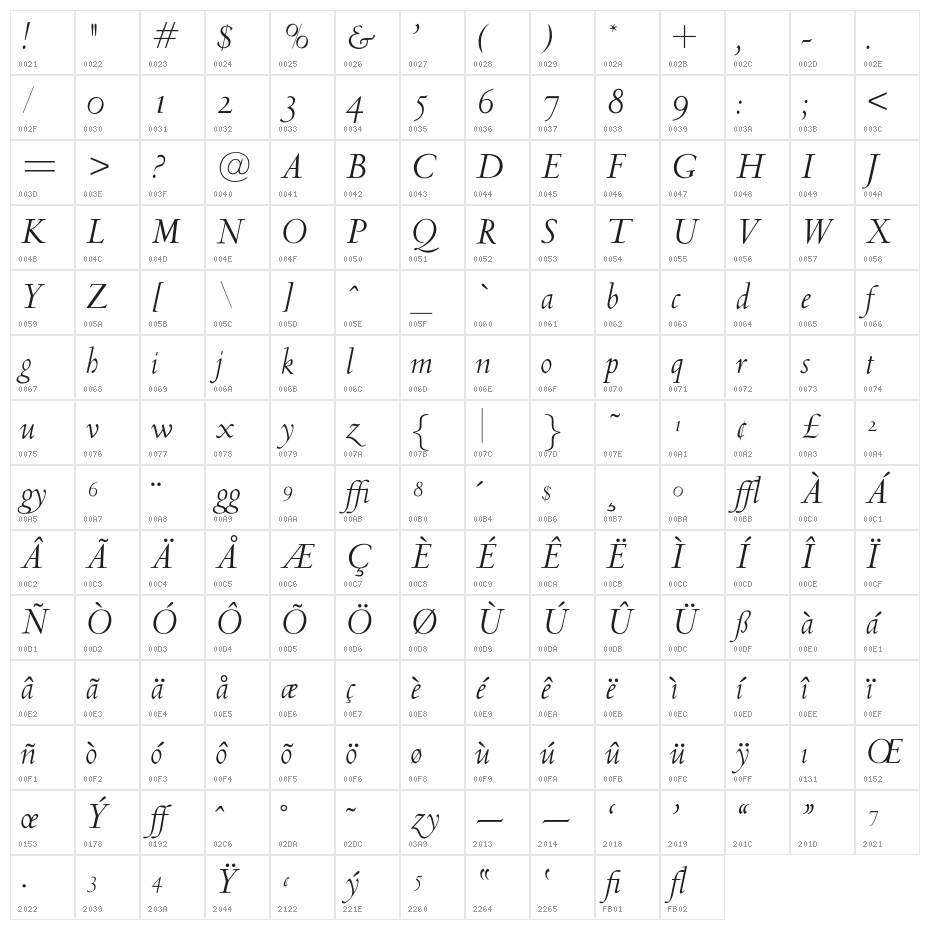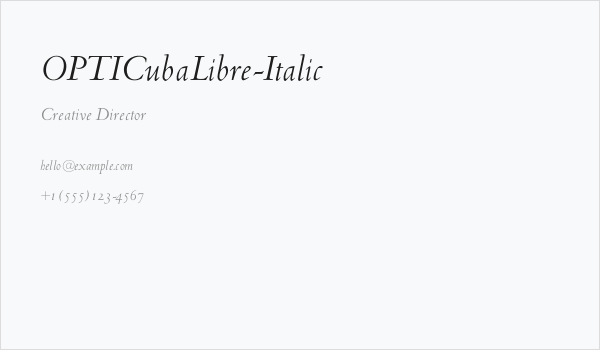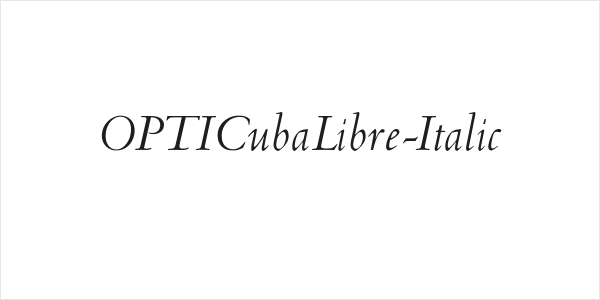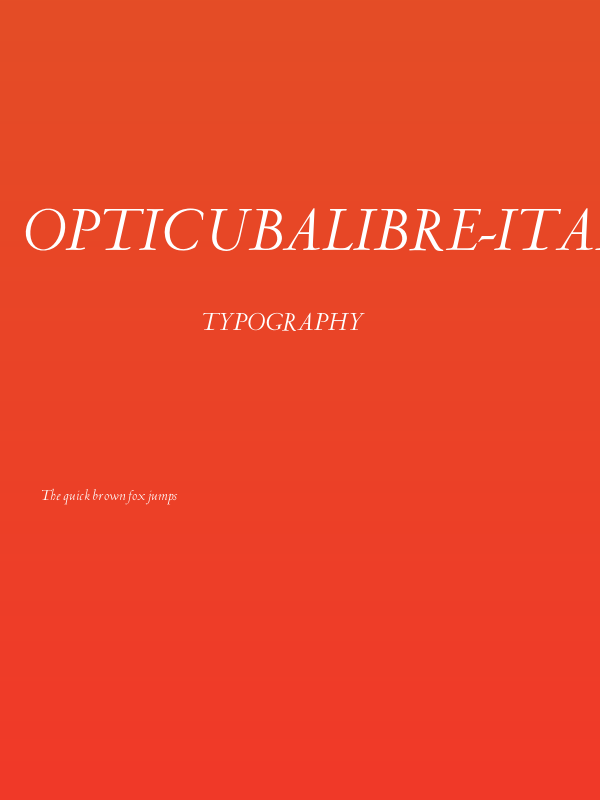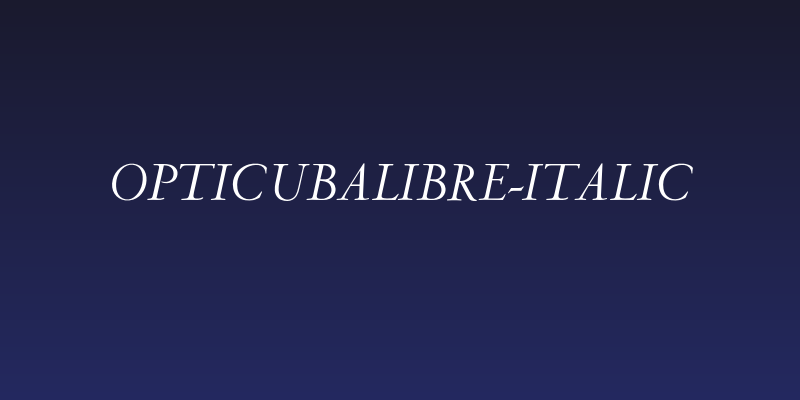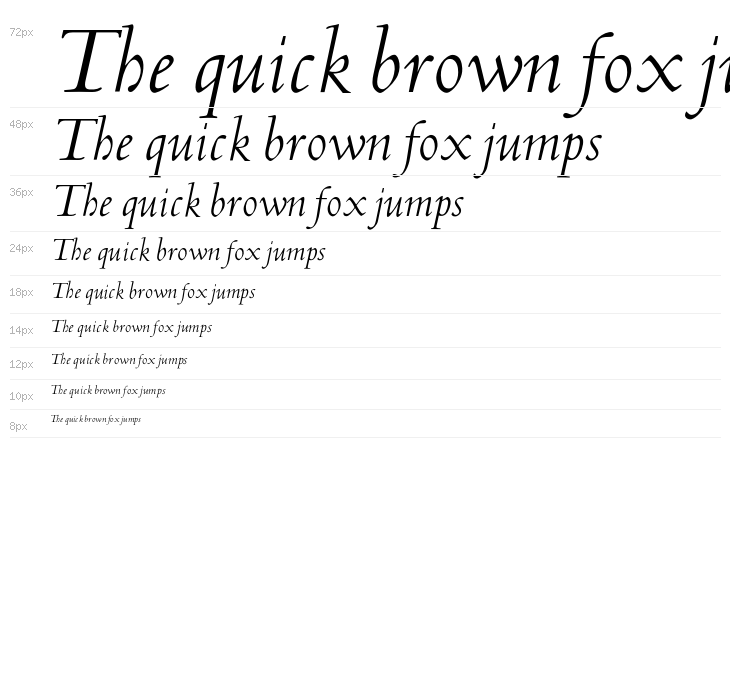
OPTICubaLibre-Italic Font
OPTICubaLibre-Italic Description
This font exhibits a classic and elegant style with a distinct italic slant, giving it a sophisticated and flowing appearance. The characters are well-proportioned, with a slight inclination that adds a sense of movement and grace. The serifs are subtle yet pronounced, enhancing the traditional feel while maintaining readability. The uppercase letters are tall and commanding, while the lowercase letters are more rounded and approachable. The numerals are consistent with the overall style, offering a harmonious blend with the alphabet. Special characters are thoughtfully designed, ensuring they complement the font's aesthetic. This font is ideal for projects that require a touch of elegance and formality.
| Proposed Projects | Ideal for wedding invitations, formal event programs, elegant branding, and editorial design. |